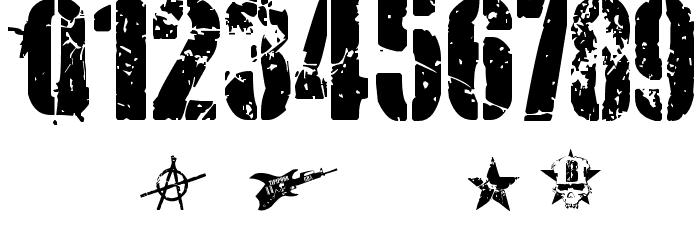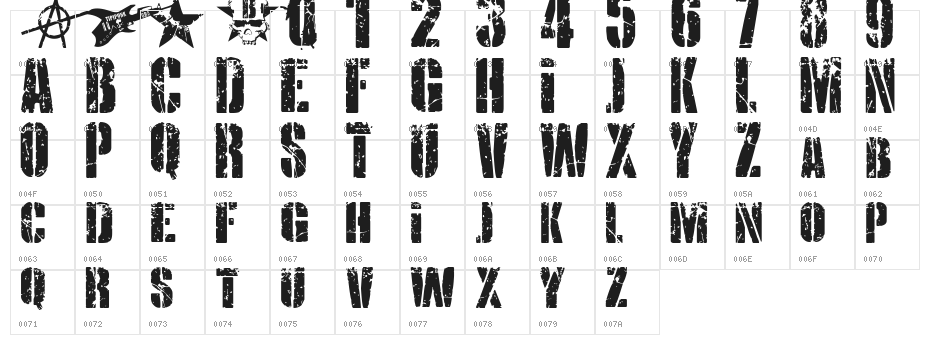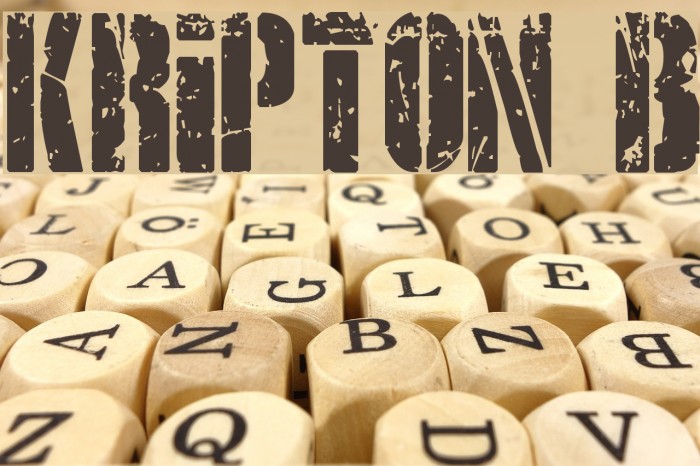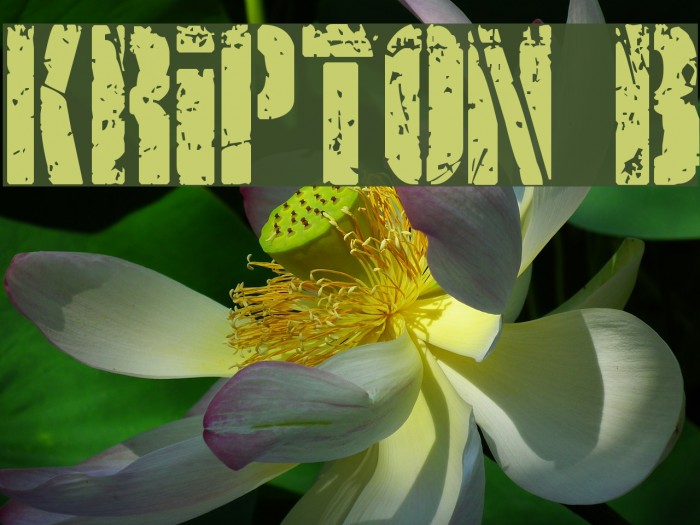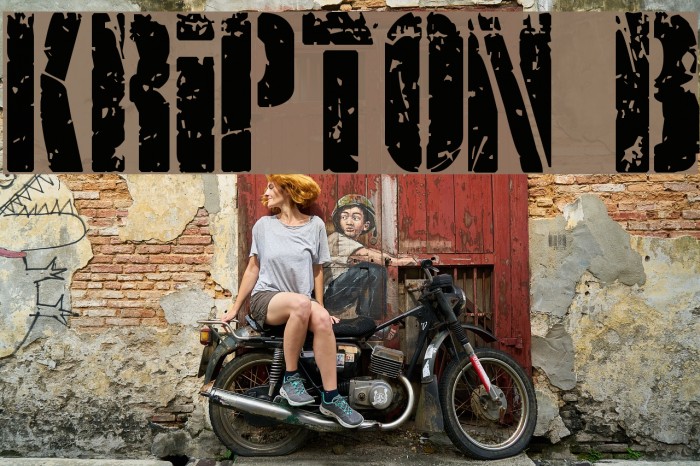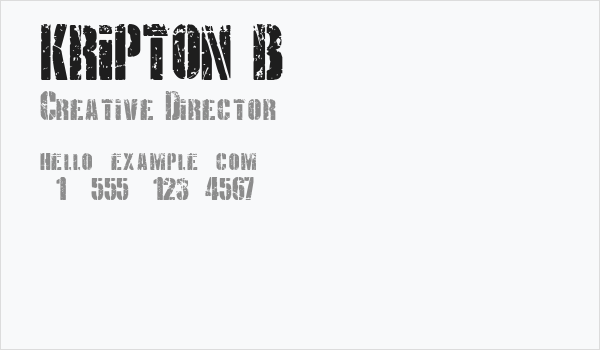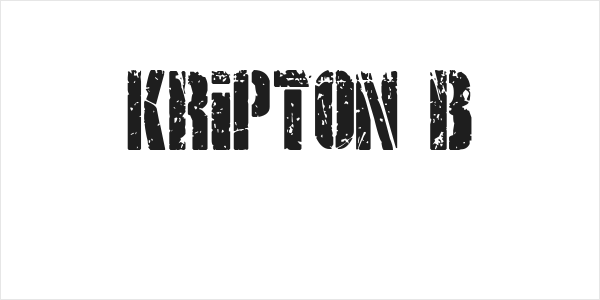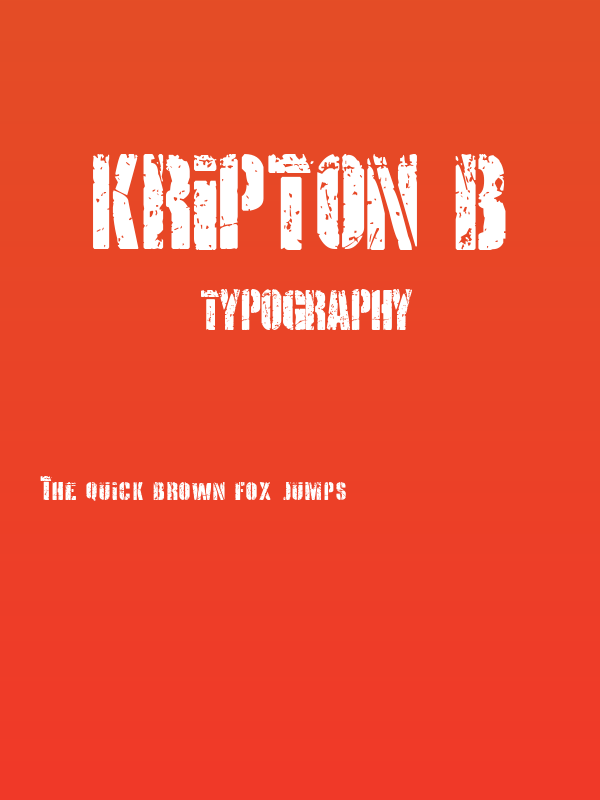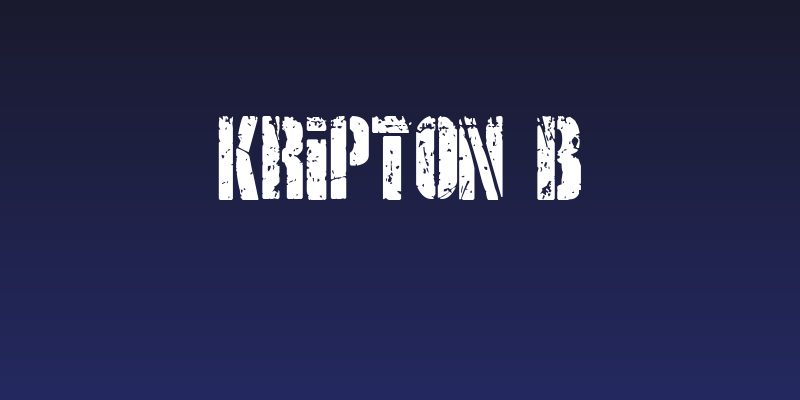
KRIPTON B Font
KRIPTON B Description
This font features a bold and distressed style, giving it a rugged and edgy appearance. The characters are heavily textured, with a worn-out look that suggests a vintage or grunge aesthetic. The uppercase letters are prominent and impactful, making them suitable for attention-grabbing headlines or titles. The numbers and special characters maintain the same distressed effect, ensuring consistency across all elements. This font's unique style is ideal for projects that aim to convey a sense of rebellion, toughness, or a retro vibe.
| Proposed Projects | Ideal for music album covers, posters, t-shirt designs, and branding for edgy or alternative products. |